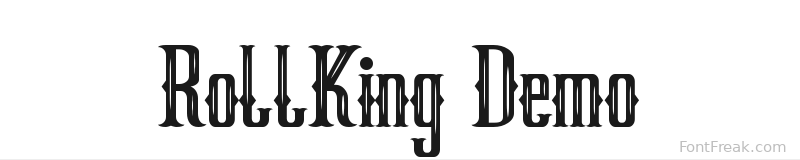
RollKing Demo Shadow
RollKing Demo
Introducing the RollKing Demo Shadow font by Noah Type, a striking display typeface designed for those seeking to make a bold statement. This decorative font features a unique blend of sharp edges and soft curves, making it a standout choice in the realm of contemporary typography. With its heavy stroke weight and distinct shadow effects, the RollKing Demo Shadow font creates a sense of depth that captures attention and enhances visual appeal.
The font's visual characteristics include a strong contrast between thick and thin strokes, which adds dynamism and energy to any design. The well-balanced spacing between characters ensures legibility while maintaining an adventurous flair, making it suitable for various applications. Decorative elements, such as ornamental serifs and exaggerated features, contribute to its playful yet sophisticated aesthetic.
This font shines in various use cases, particularly in creative fields. It is perfect for eye-catching movie posters that demand attention, making it an ideal choice for independent filmmakers and graphic designers. Additionally, the RollKing Demo Shadow font is well-suited for restaurant menus that aim to convey a unique dining experience, as well as event flyers for festivals, parties, or concerts where a vibrant feel is essential. Wedding invitations can also benefit from its charming character, adding a touch of whimsy and elegance.
Targeting graphic designers, small business owners, and content creators, this font provides the versatility needed to elevate any project. For those looking to enhance their branding or design work, the RollKing Demo Shadow font free download is an opportunity not to be missed. Its distinctive style and engaging presence set it apart from other typefaces, making it a valuable addition to any creative toolkit. Whether you are designing for print or digital media, this font promises to leave a lasting impression.